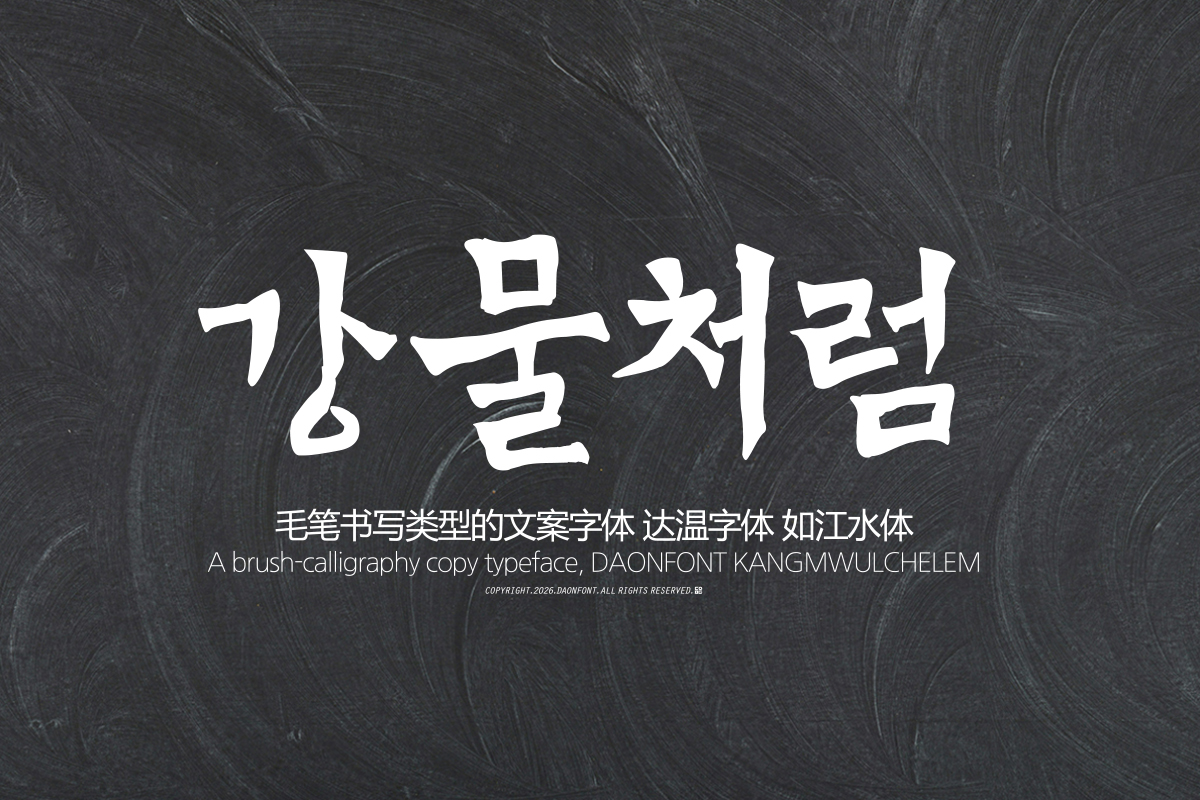
DAON KANGMWULCHELEM(B)
DaonFont 'KANGMWULCHELEM' is a calligraphy-style Korean typeface that suits copy with a strong tone. The movement of the strokes is alive, as if written forcefully with a brush, and it is a typeface that conveys a weighty impression.